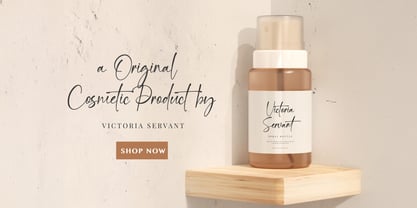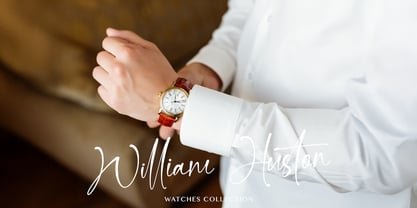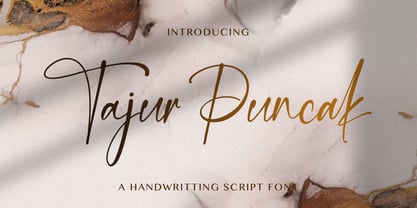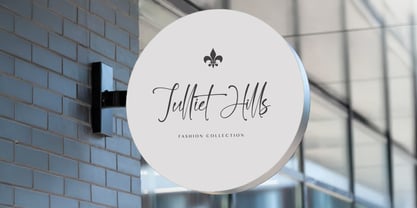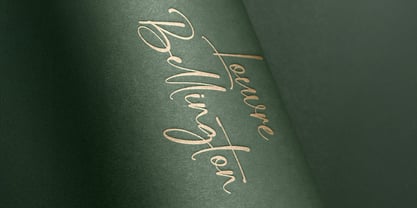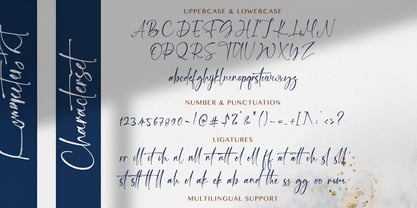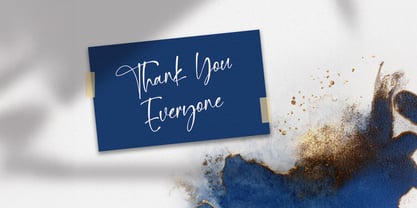
Tajur Puncak
by Stringlabs Creative Studio
The Tajur Puncak Font Family was designed by Virgiawan Listanto and published by Stringlabs Creative Studio. Tajur Puncak contains 1 styles. More about this family
Tajur Puncak is a natural handwritten font that radiates warmth and authenticity. With its flowing strokes and casual elegance, this font captures the charm of personal handwriting while maintaining clarity and style. Its relaxed yet refined character makes it a versatile choice for projects that aim to feel heartfelt and genuine.
Designers: Virgiawan Listanto
Foundry: Stringlabs Creative Studio